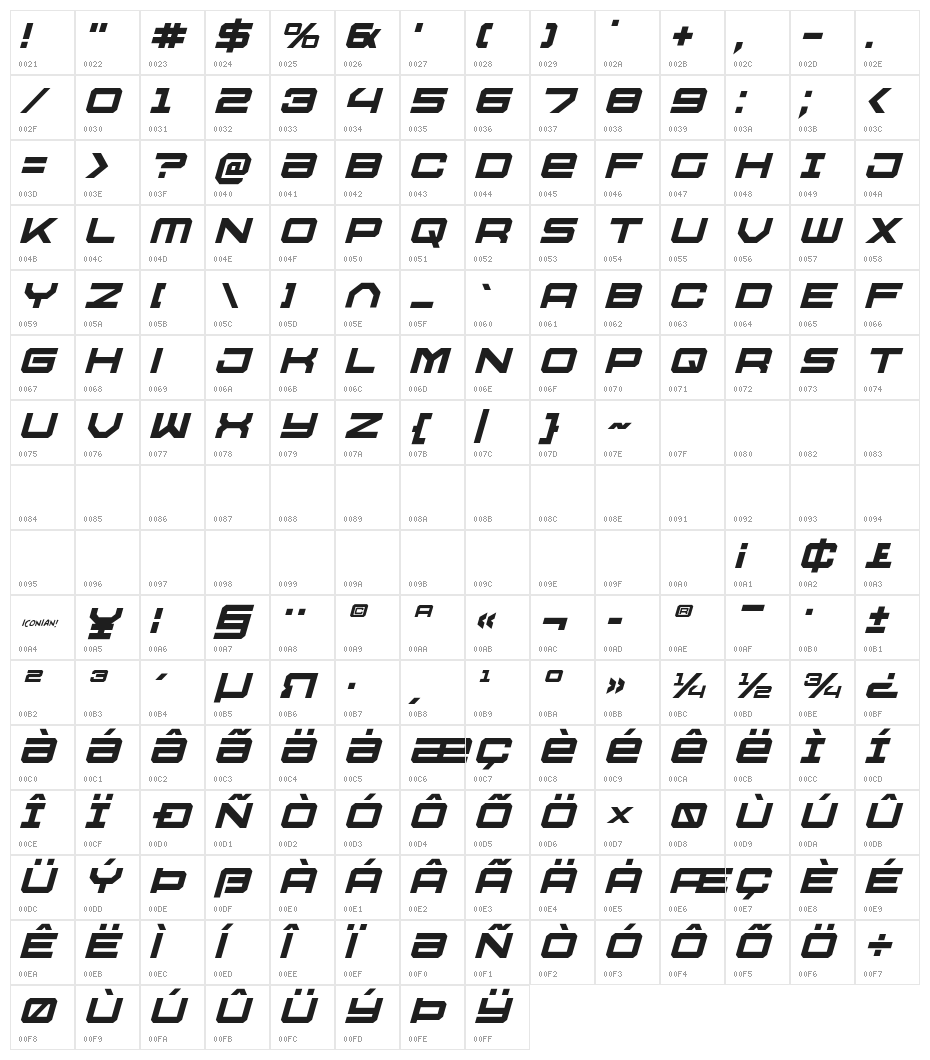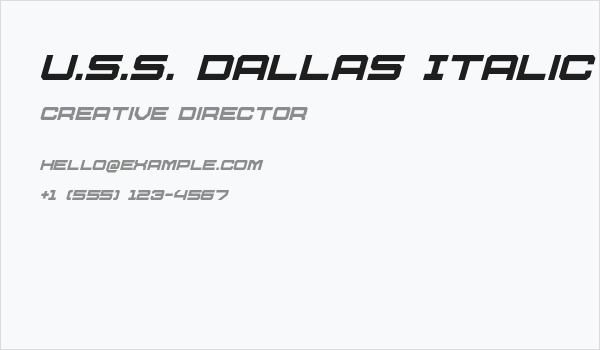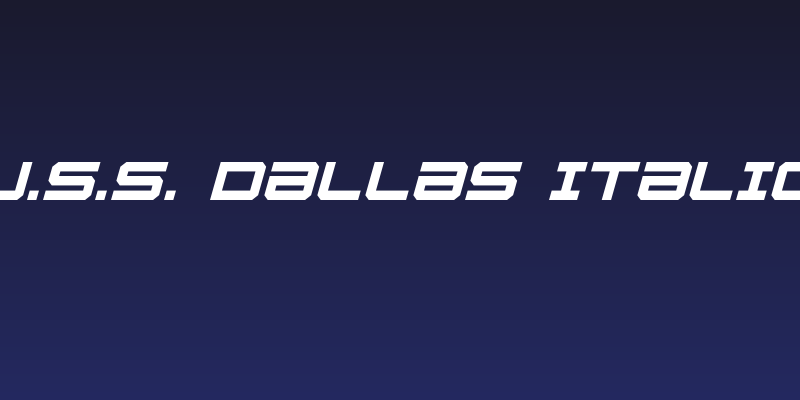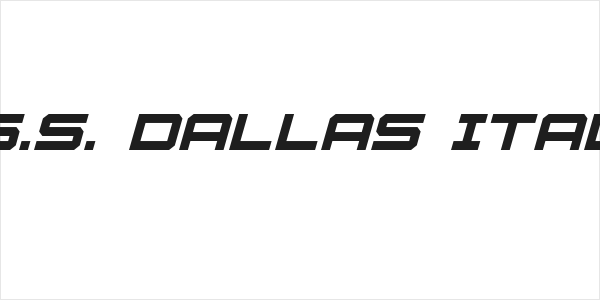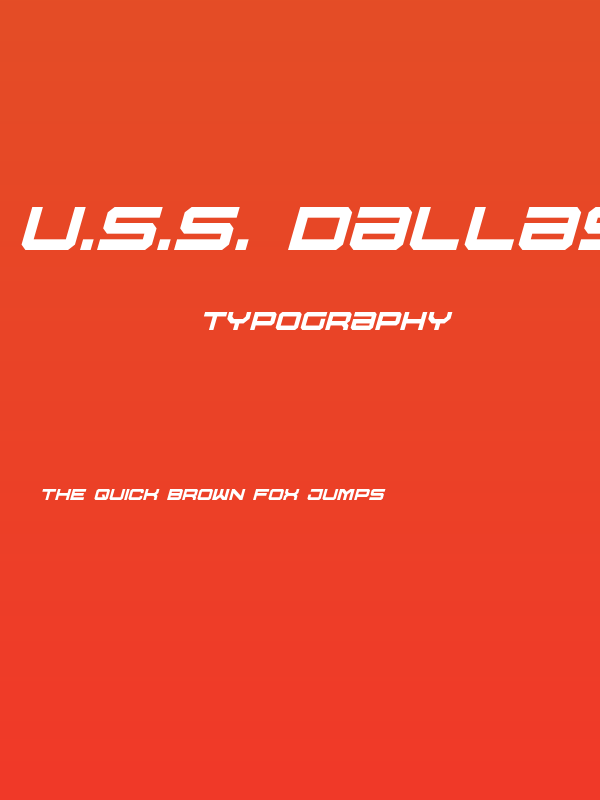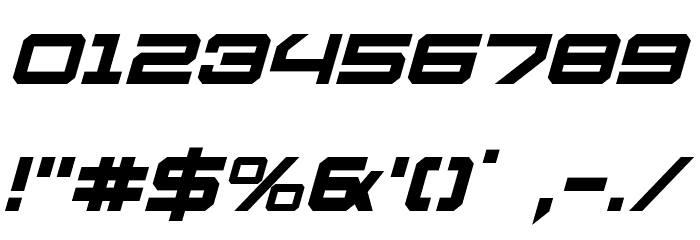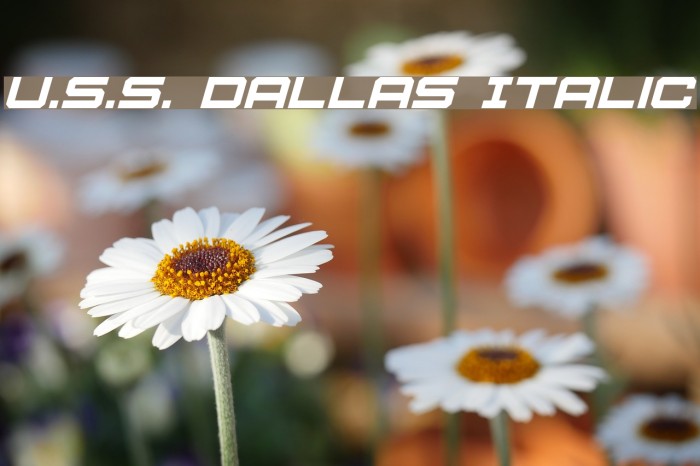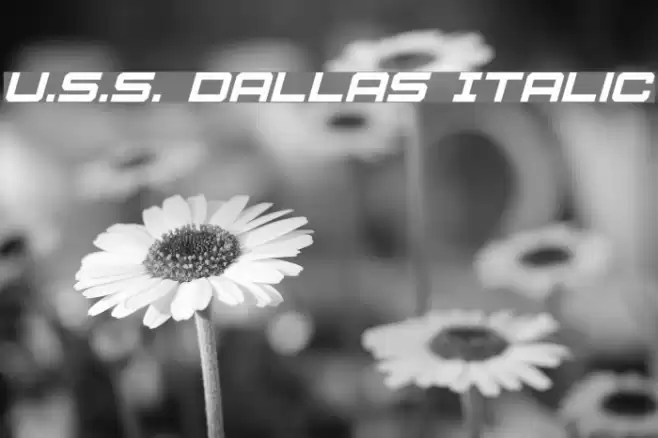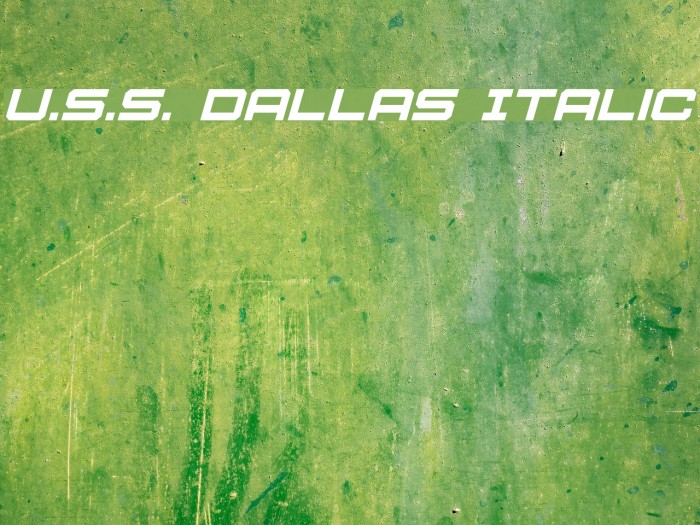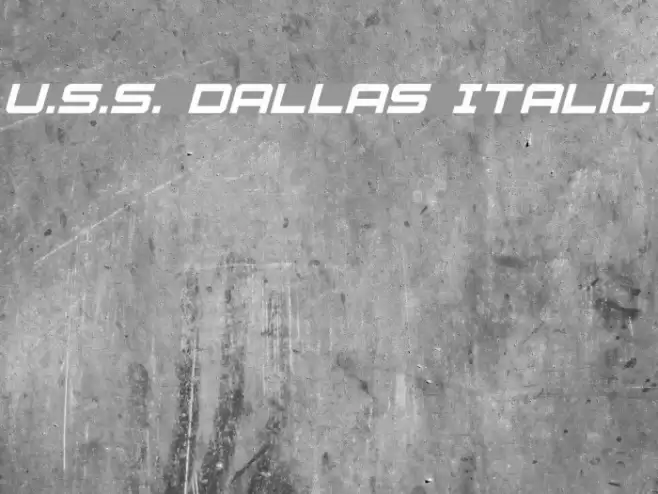
U.S.S. Dallas Italic Font
U.S.S. Dallas Italic Description
This font features a bold and dynamic style with a futuristic and angular design. The characters are italicized, giving them a sense of motion and speed. Each letter is crafted with sharp edges and a geometric structure, making it ideal for projects that require a modern and tech-savvy appearance. The uppercase and lowercase letters maintain a consistent style, while the numerals and special characters complement the overall aesthetic. The font's unique design makes it stand out, suitable for attention-grabbing headlines or branding that seeks to convey innovation and forward-thinking.
| Proposed Projects | Ideal for technology branding, sci-fi themed projects, video game titles, and modern advertising. |